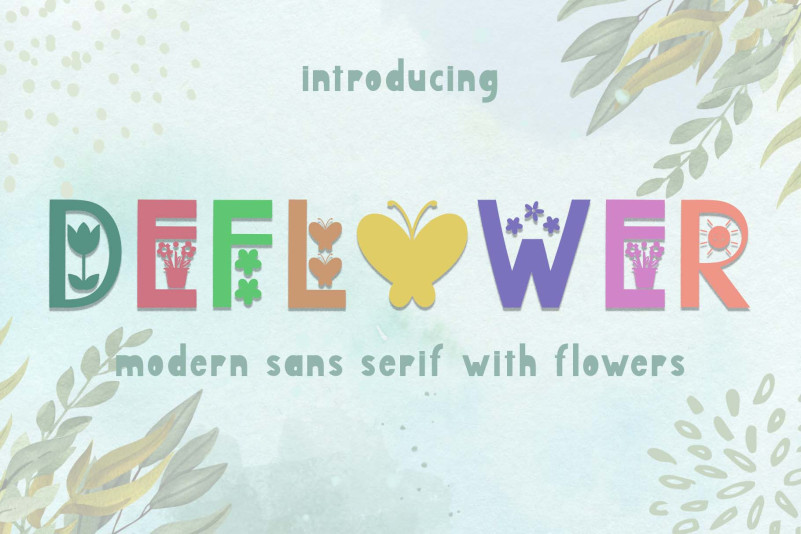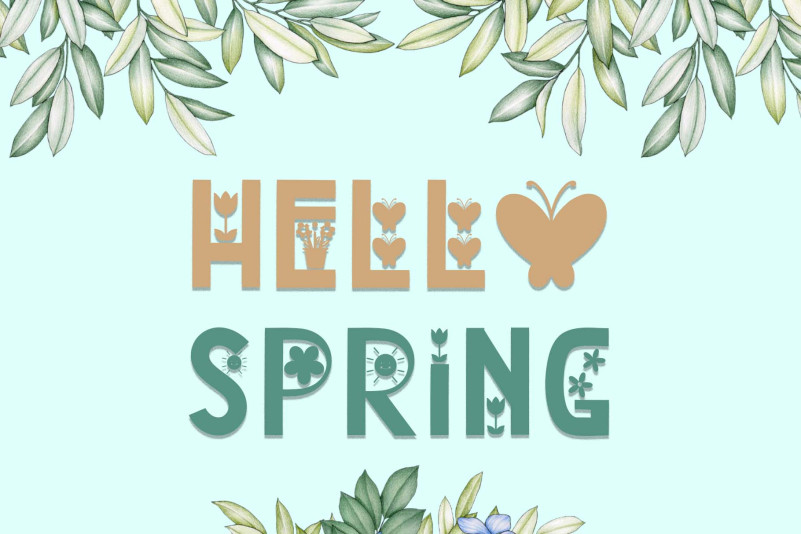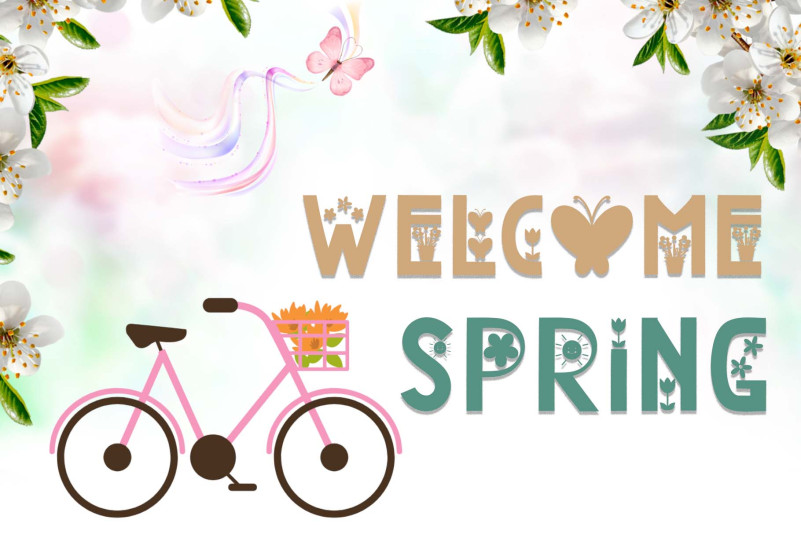
Deflower Font
Deflower Display Font is a quirky and cute font with floral decoration in each capital letter. It is suitable for spring, Easter, weddings, photography, and so on.